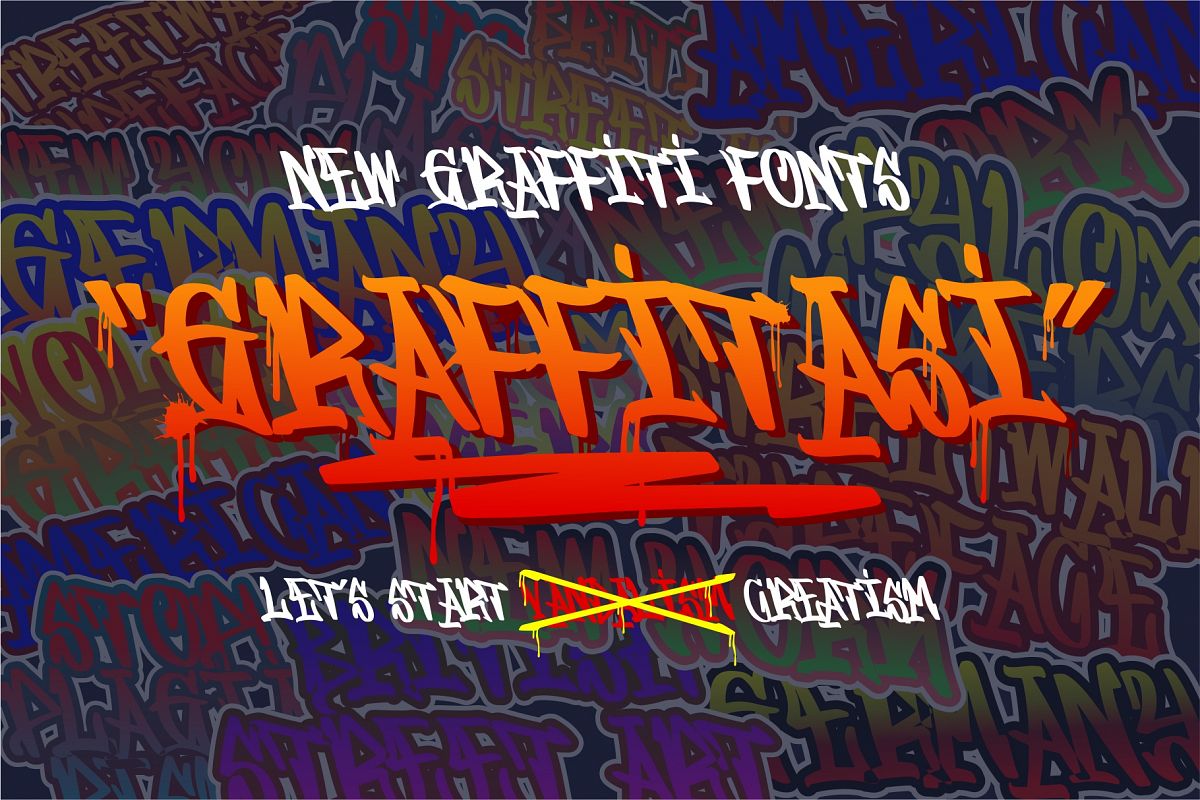
GRAFFITASI - Street Fonts
Introducing a new graffiti font: GRAFFITASIGraffitasi inspiration from street writing on the wall has very high artistic value. But there are still many that are being misused right now. This Graffitasi font is a form of concern not to commit vandalism. That is to meet the designers by making more ethical works by using this Graffiti font.These include all caps, punctuation, and numerals. Also with extra extra splatter and swash to add a natural impression to the use of this font.Other advantages:
• EXTRAS SPLATTER and SWASH (in Adobe illustrator format)
• EDITED STICKER